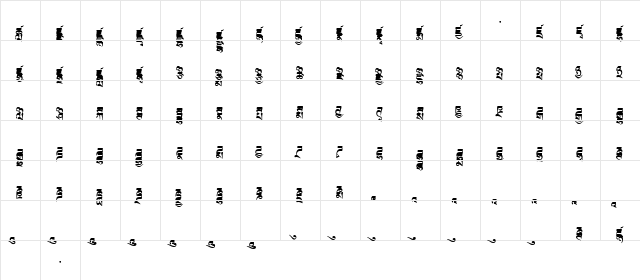
TibetanMachineWeb3 Regular
| Designer | Tony Duff |
Design Context for TibetanMachineWeb3 Typeface
TibetanMachineWeb3 is a composed and adaptable typeface that performs quietly and consistently across a wide range of design contexts.